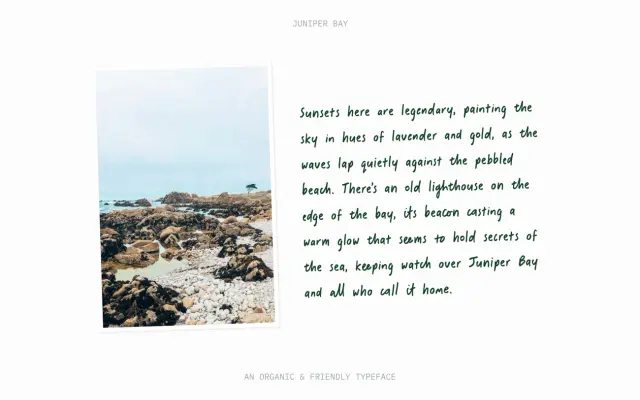
Juniper Bay
A casual marker script with over 135 custom ligatures and stylistic alternates, suited to handwritten notes, fashion work and wedding stationery.
A relaxed handwritten typeface drawn in a marker style, with an emphasis on natural rhythm and variety. Version 2.0 adds 67 new characters, 13 new custom ligatures and 42 scribble illustrations alongside improved kerning and spacing. A full stylistic alternates set offers an alternative character suite with the same overall feel.
A marker-style casual script with organic letterforms and extensive ligature support, characteristic of informal handwritten typefaces.